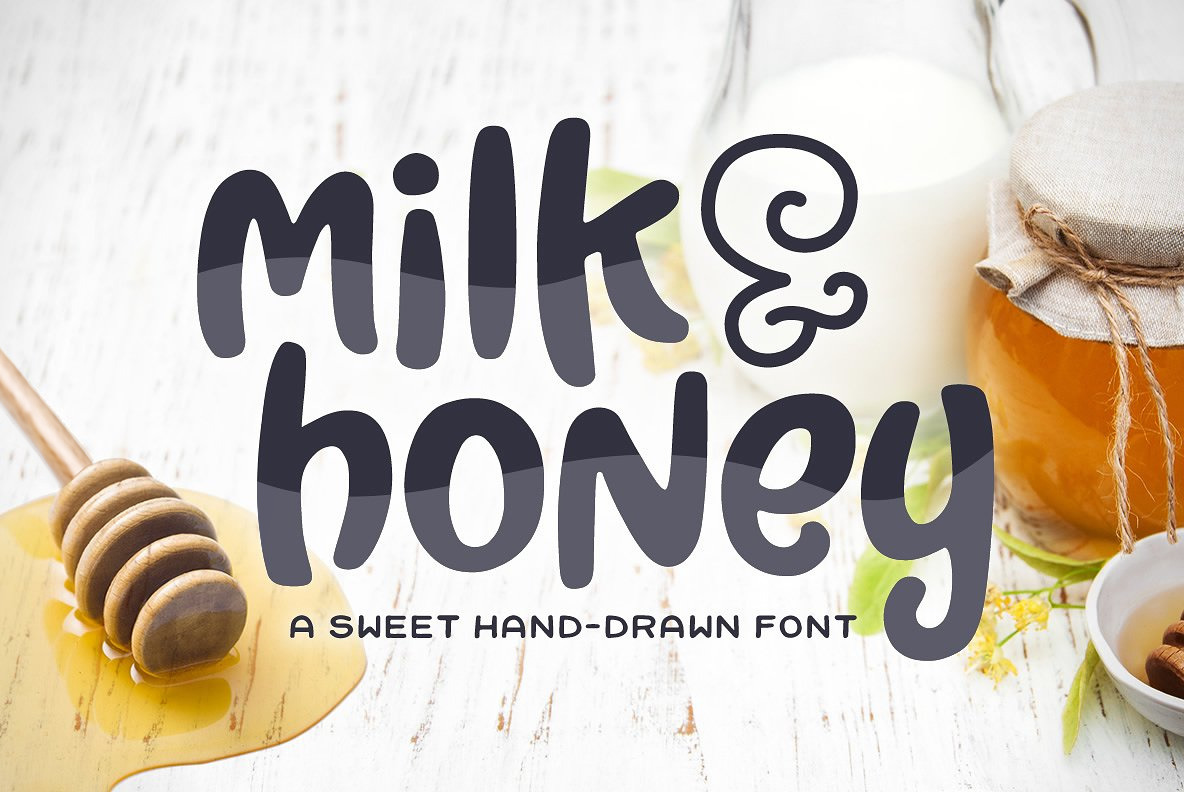
Milk & Honey Font
Introducing: Milk & Honey! A sweet and simple hand-drawn font. Its bold and curvy characters can add a bunch of personality to any project.